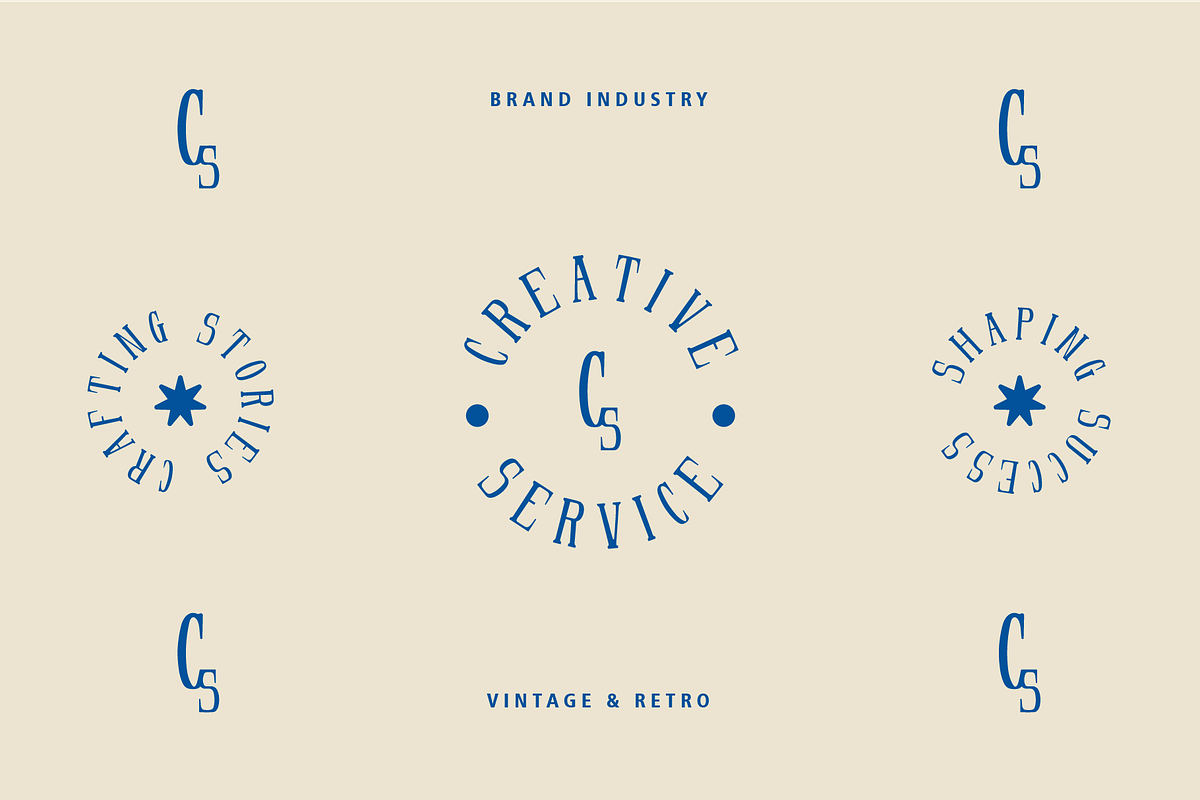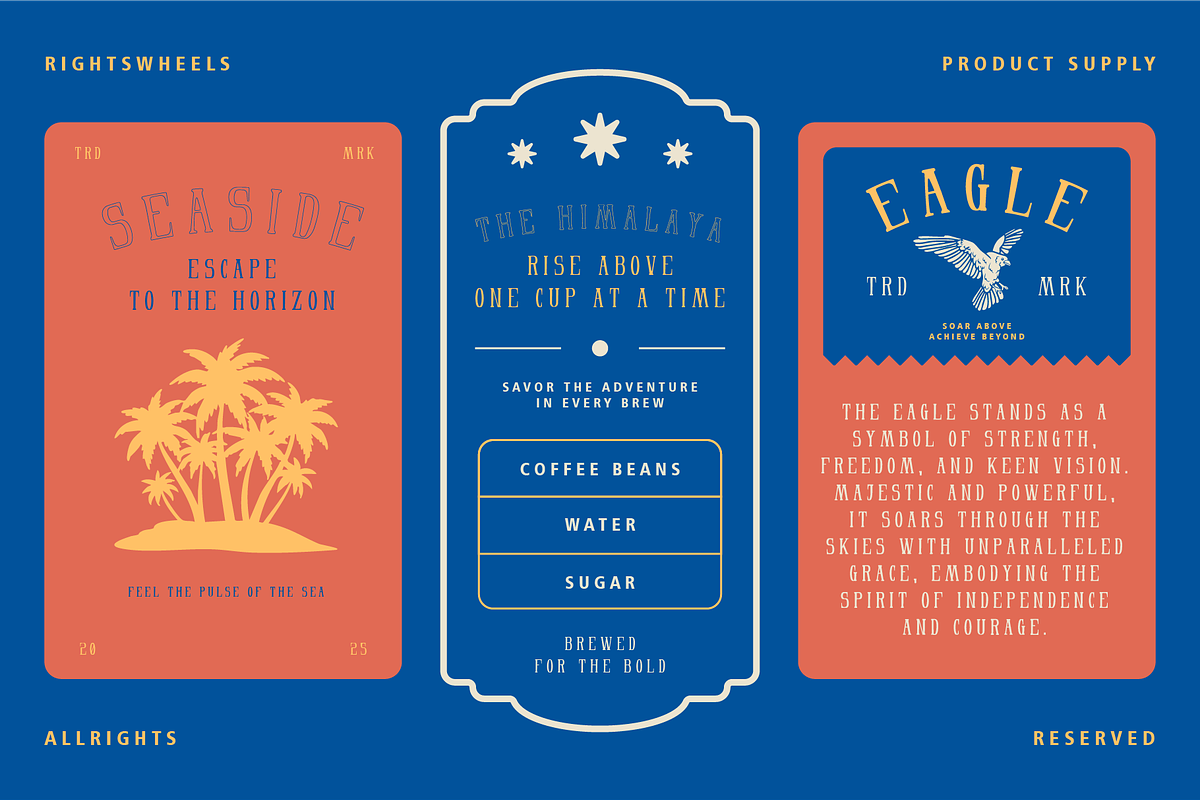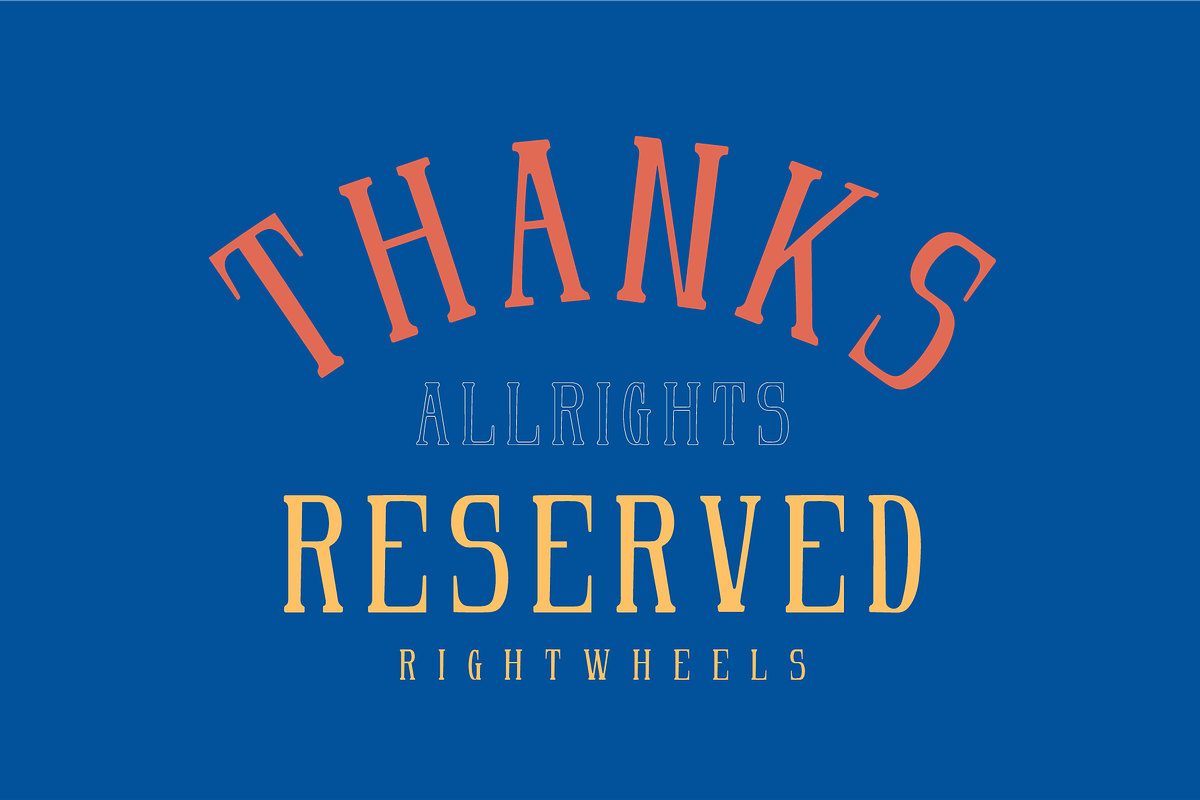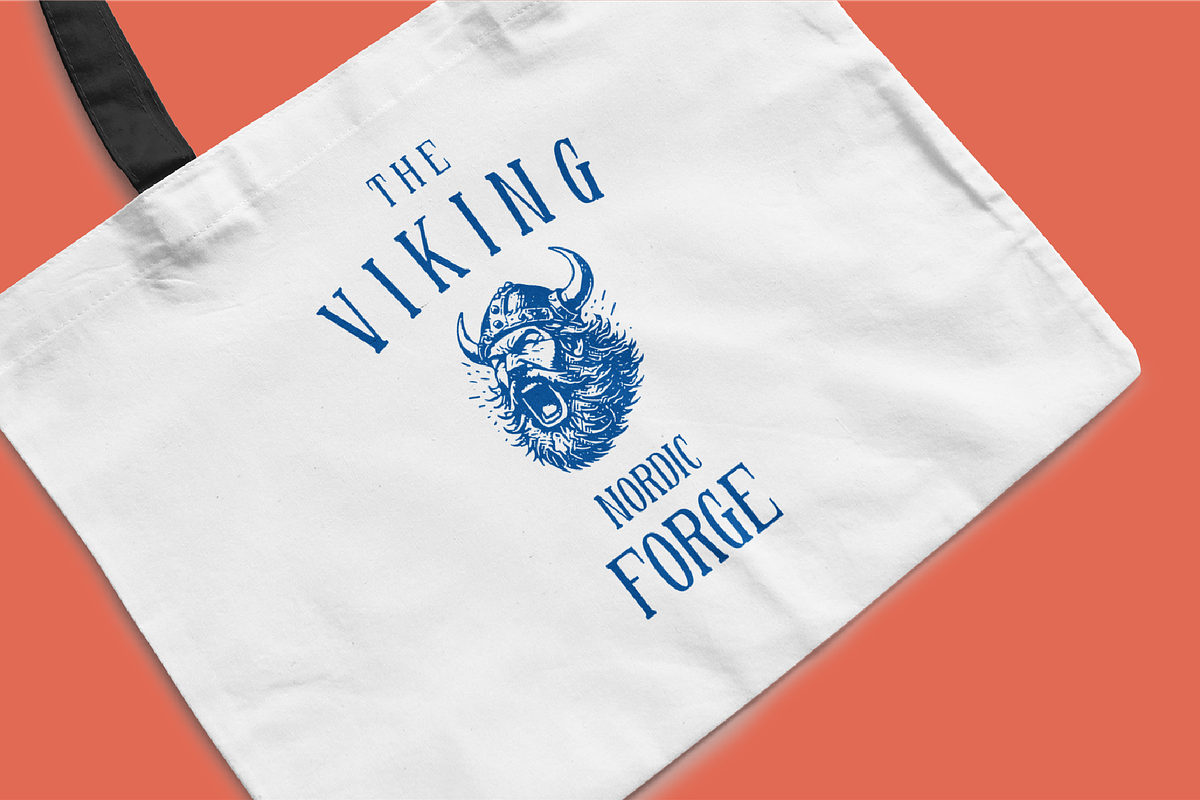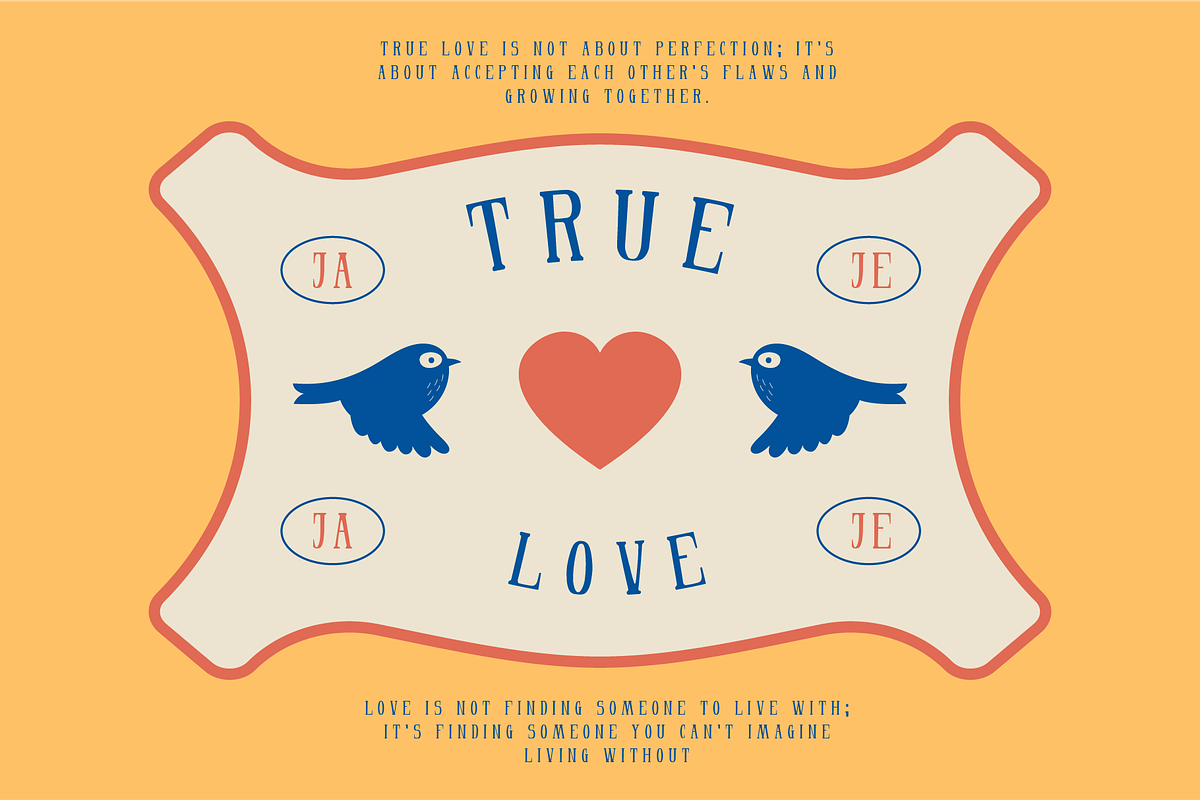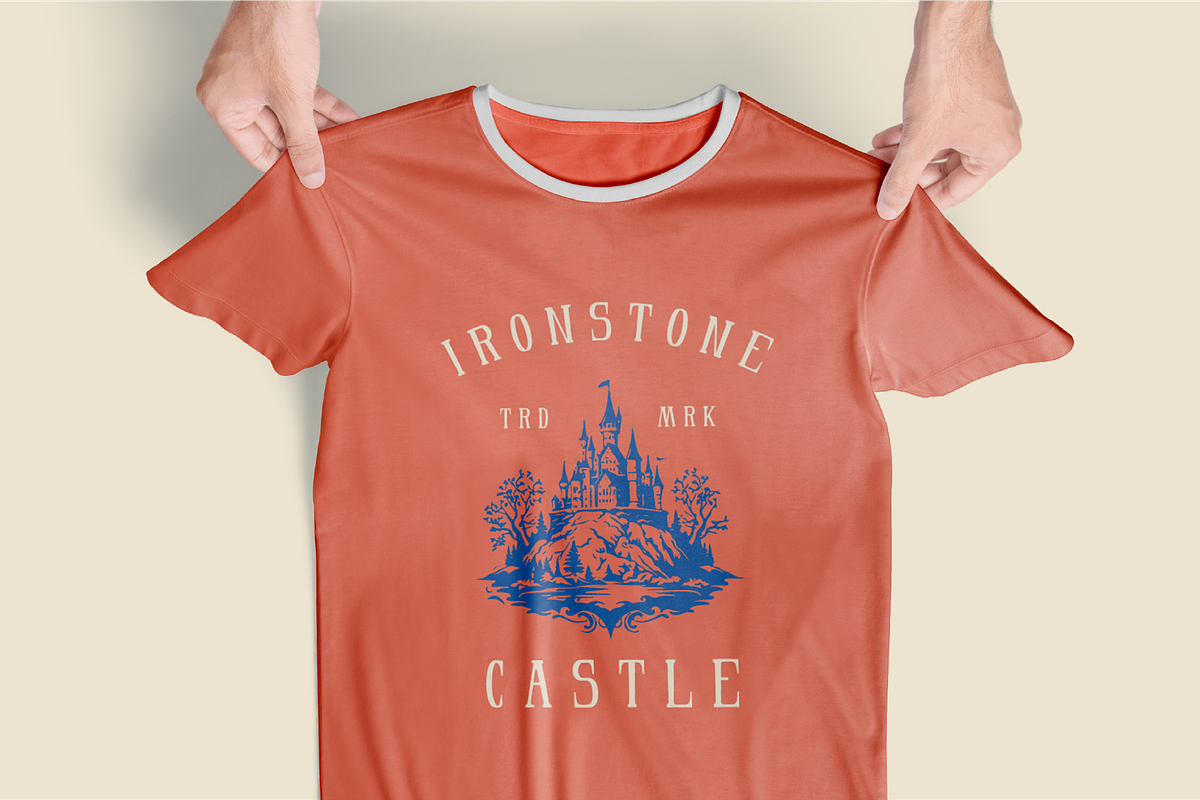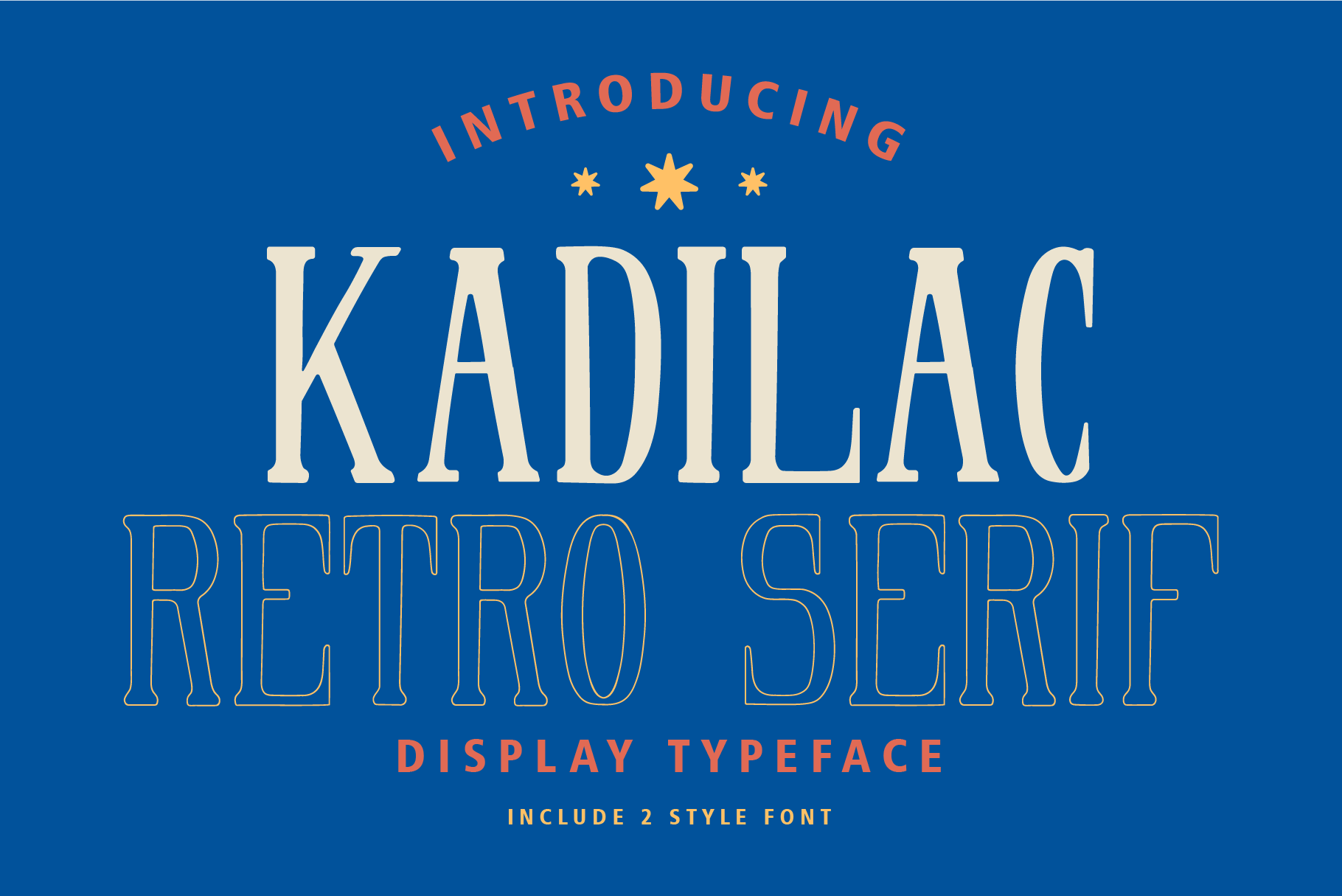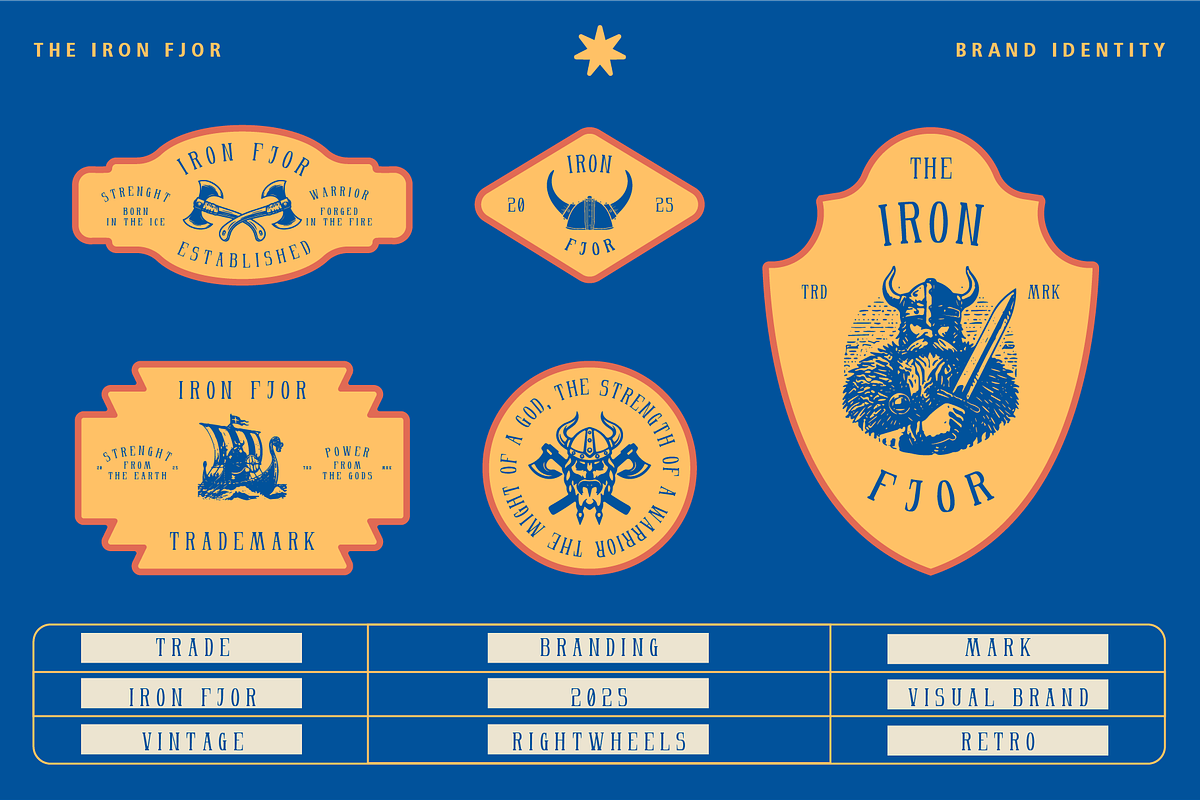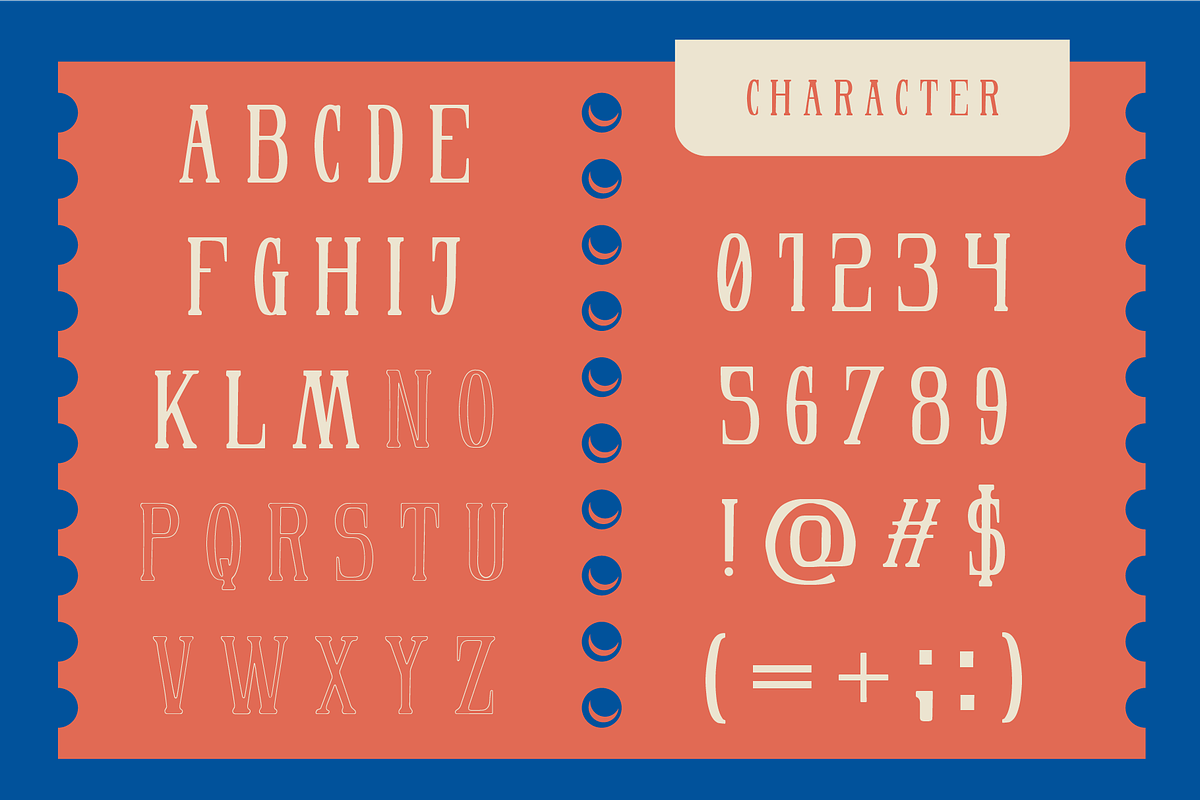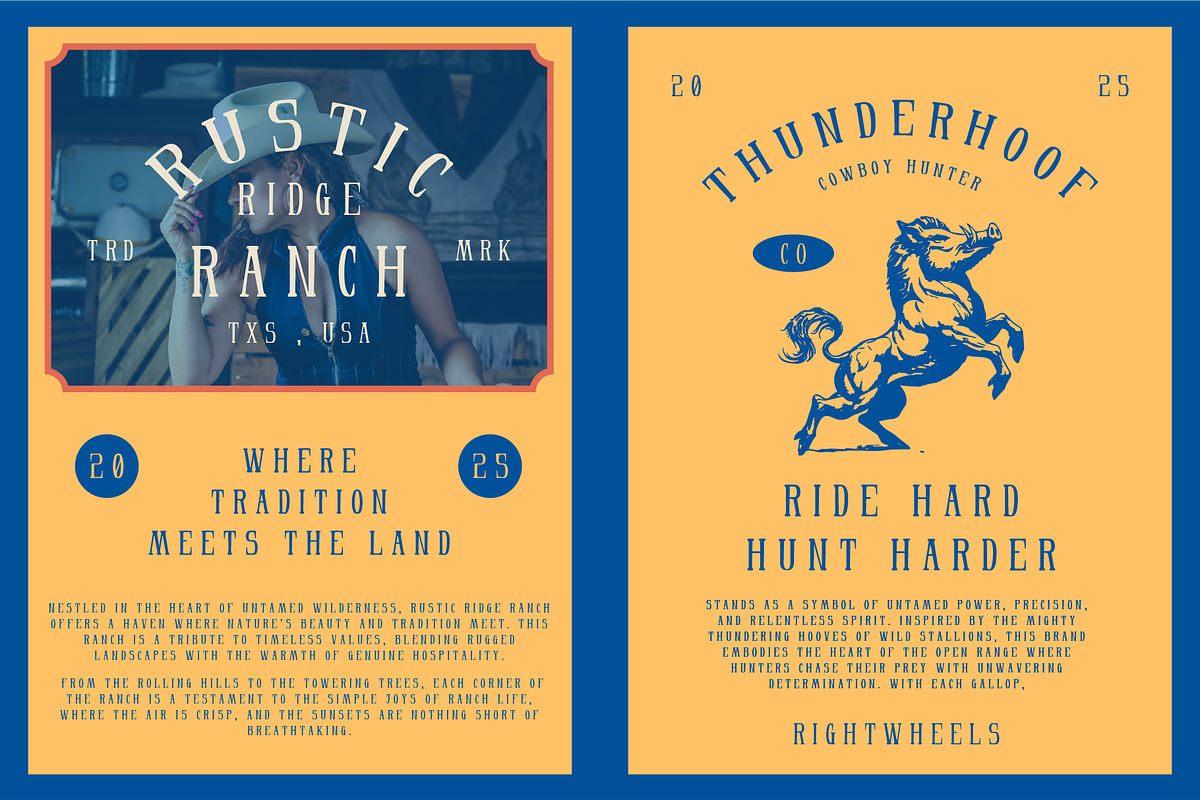
KADILAC - Retro Serif Font
KADILAC is a retro serif font that combines timeless elegance with a bold, vintage appeal. With its strong, distinctive serifs and a touch of old-school charm, KADILAC is perfect for creating projects that need a sophisticated yet nostalgic look. Whether used in logos, headlines, or branding materials, this font adds character and depth, making it an ideal choice for designs that want to capture the essence of the past while maintaining a contemporary edge.